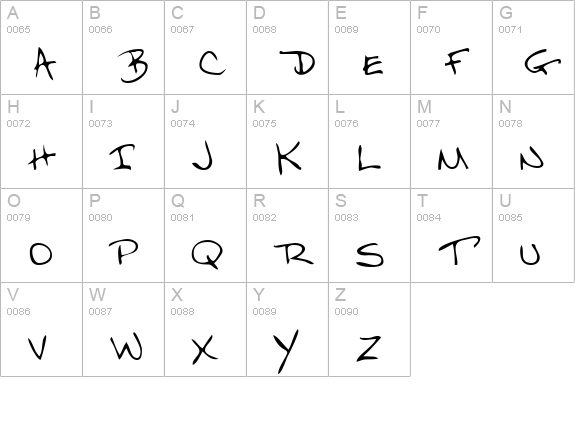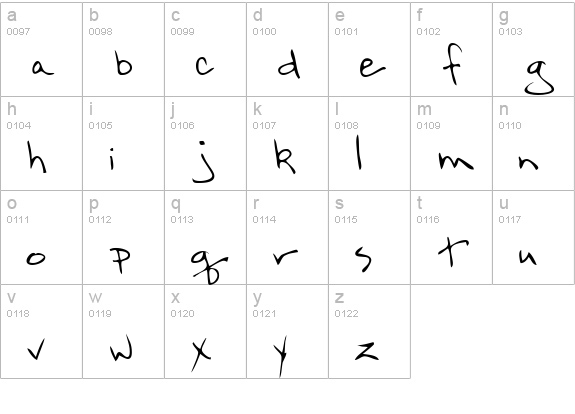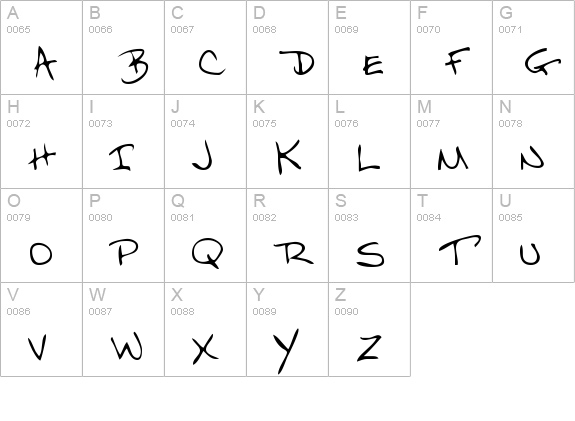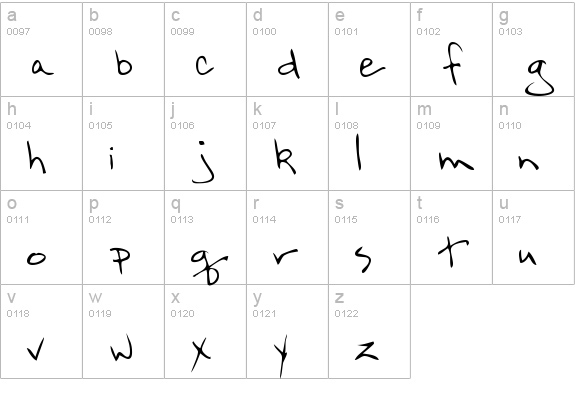
FlintsHand Font Details
FlintsHand font is a charming and versatile typeface that exudes a sense of warmth and creativity. Its handwritten style gives off a personal touch, perfect for adding a unique flair to your designs. Whether you're working on invitations, logos, or any other project, FlintsHand is sure to make a lasting impression. The best part? FlintsHand font is completely free to download at FontsMarket.com! Embrace this beautiful font and let your creativity flow without any cost. Don't miss out on the opportunity to enhance your designs with FlintsHand's elegant and whimsical charm. Download it now and elevate your projects to the next level!